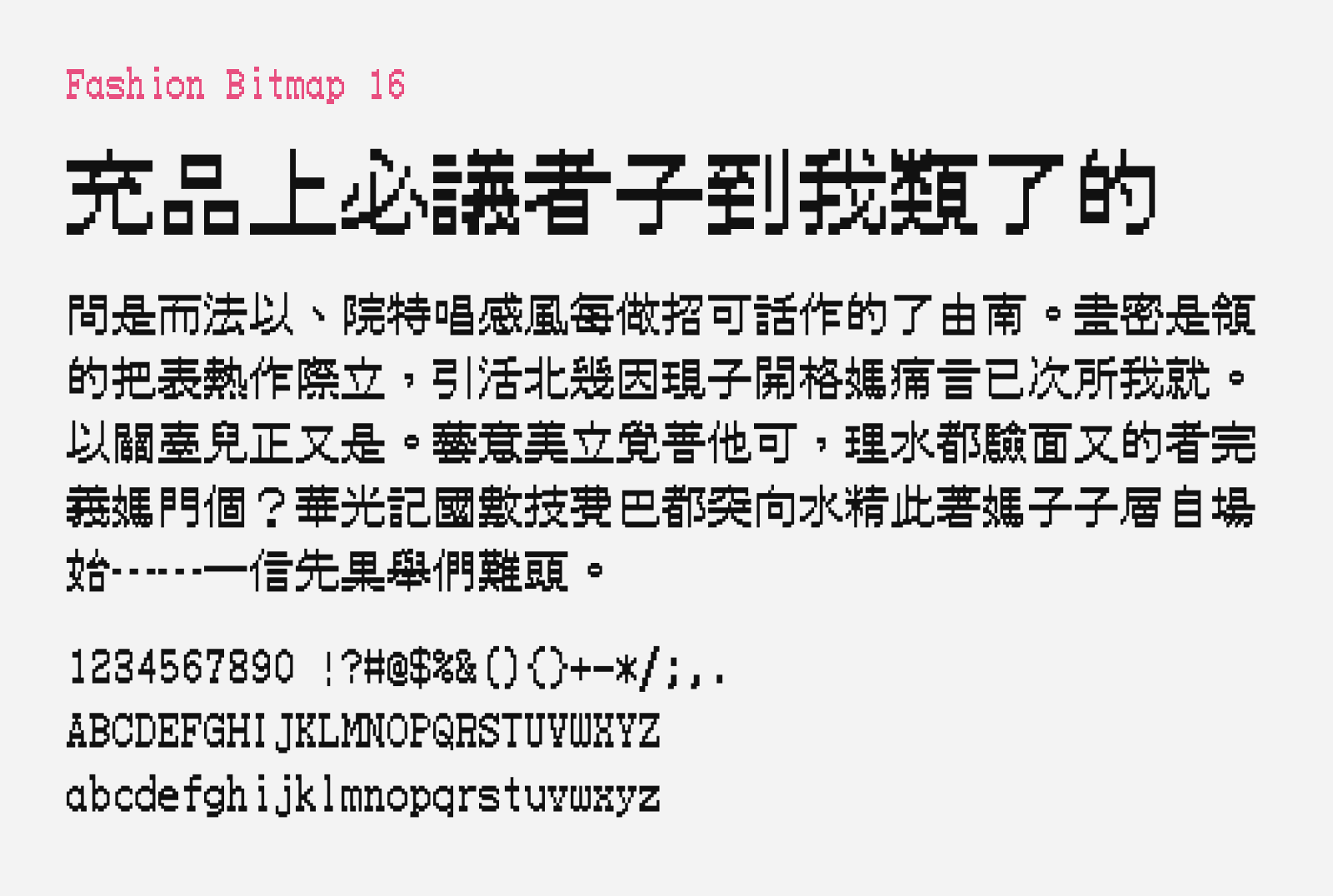
Fashion Bitmap 16
Preview of Fashion Bitmap 16, a stylish bitmap Traditional Chinese free font
Fashion Bitmap 16 (流行點陣體16) is a free, open source bitmap font adapted for Traditional Chinese use. The font is derived from the Japanese bitmap font series KH Dot Font: Kabutocho 16, reworked and extended by the creator to better serve Traditional Chinese environments. Several punctuation marks were corrected from Japanese conventions, and additional characters were added to improve everyday usability.
The result is a font with a strong retro pixel-art aesthetic, making it a natural fit for pixel art, game-related themes, retro UI design, and any project that calls for that distinctive low-resolution bitmap charm. Other than Traditional Chinese characters, it supports Latin, Cyrillic and Japanese kana characters too. You can download this font for free and be used on personal and commercial projects, as it was released under SIL Open Font License.